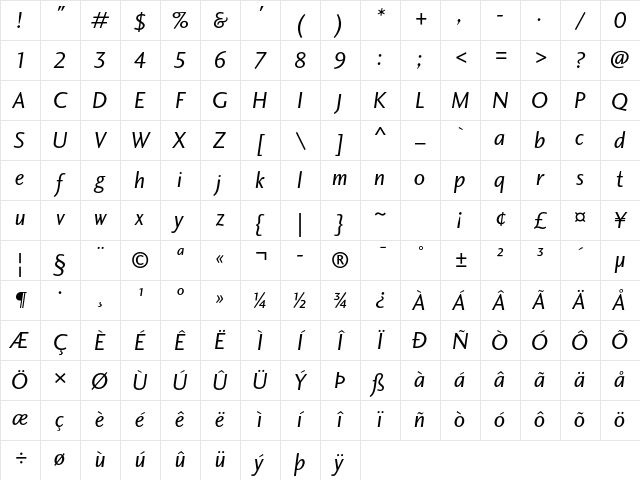
Charlotte Sans Std Book Italic
Designer: Michael Gills
Design Context for Charlotte Sans Std
Charlotte Sans Std is a composed and adaptable typeface that performs quietly and consistently across a wide range of design contexts. The slanted form adds forward momentum and visual energy.
Pro Tip: Use Charlotte Sans Std for emphasis, pull quotes, and subheadings where its slanted energy can add rhythm to the layout.